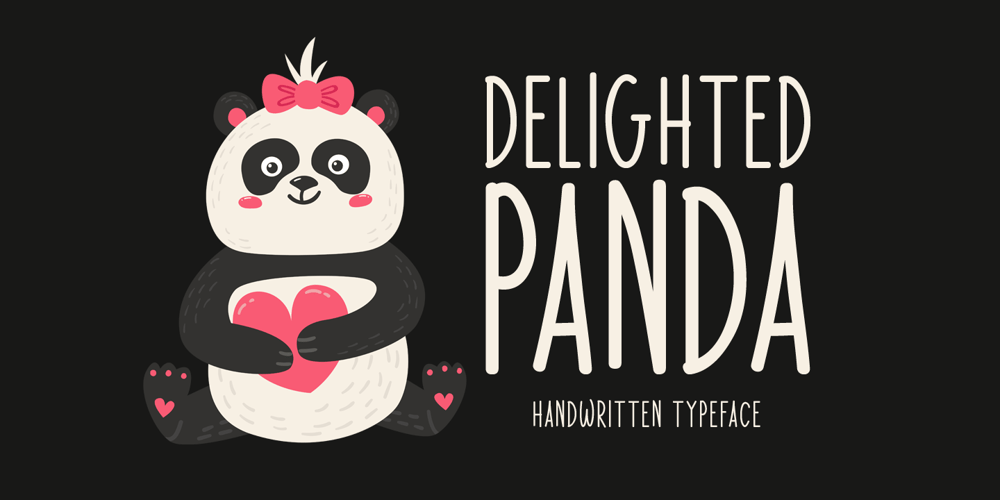
Delighted Panda
Delighted Panda font
Delighted Panda Font Family was designed by Md Shohail Bhuian and published by Seemly Fonts. Delighted Panda contains 1 styles and family package options. Delighted Panda is a sweet and simple handwritten font. Its natural and unique style makes it incredibly fitting to a large pool of designs. The only limit is your imagination!